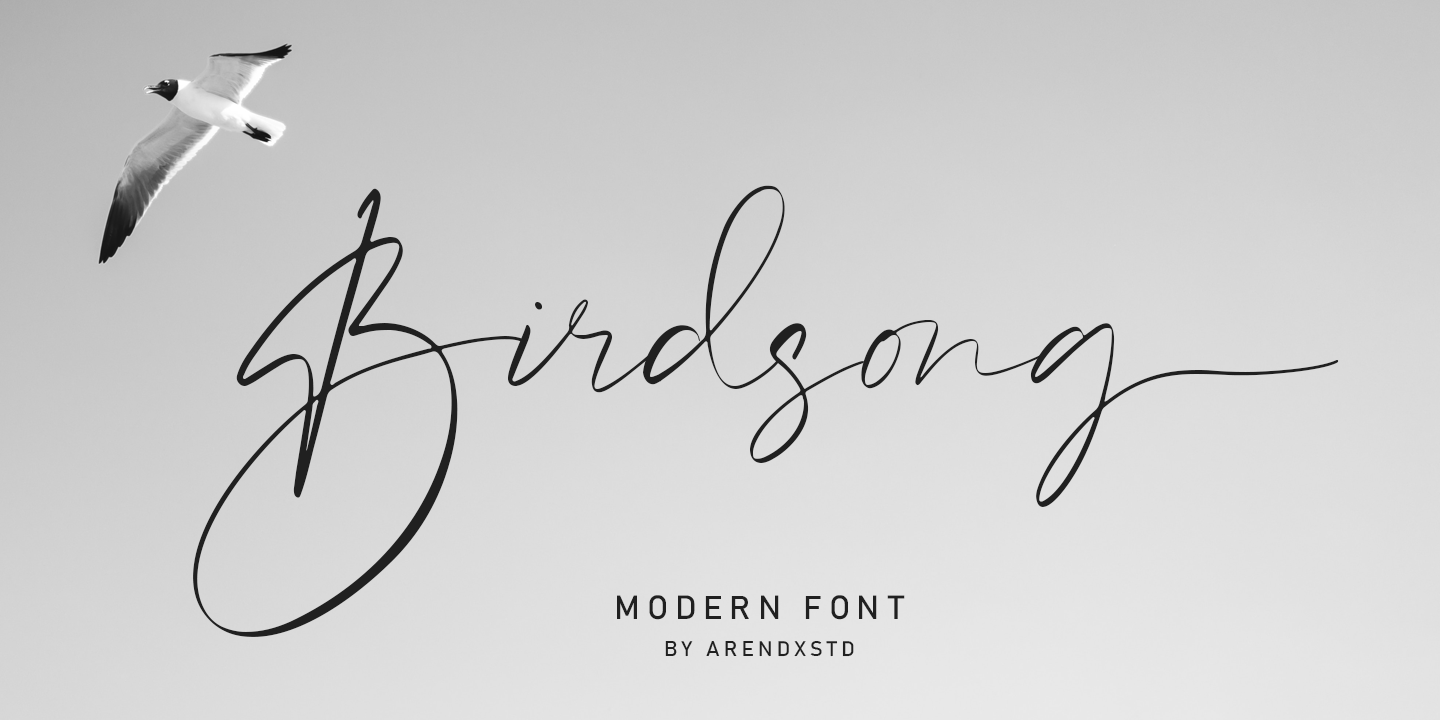
Birdsong Font is perfect for various design applications including spring festival invitations, nature documentary titles, children's book illustrations, garden center branding, wildlife conservation campaigns, peaceful meditation apps, morning café signage, bird watching guides, outdoor education materials, and harmonious typography displays.
What makes Birdsong Font so exciting is its melodic and cheerful character design that captures the joyful essence of nature's morning symphony through typography. The font features graceful, flowing letterforms with delicate curves and uplifting rhythm that evoke the beauty of birds singing at dawn. Its harmonious appearance and peaceful energy make it ideal for projects requiring a serene, natural aesthetic that connects with audiences seeking tranquility and creates inspiring, calming brand experiences.
Birdsong Font comes in multiple font families including Regular, Bold, Light, Italic, and Script variations, providing designers with comprehensive typographic flexibility for diverse nature-inspired projects and peaceful branding applications.
This enchanting typeface stands out in the competitive font market due to its exceptional melodic appeal and natural charm. Whether you're creating wildlife education materials, peaceful wellness brands, or nature-themed greeting cards, Birdsong Font Free Download delivers the perfect balance of elegance and natural harmony. The font's beautifully crafted letterforms ensure excellent performance across both digital and print media, making it an essential addition to any designer's nature-inspired typography collection. Its unique character set supports various design contexts while maintaining consistent melodic quality throughout different applications and peaceful creative projects.